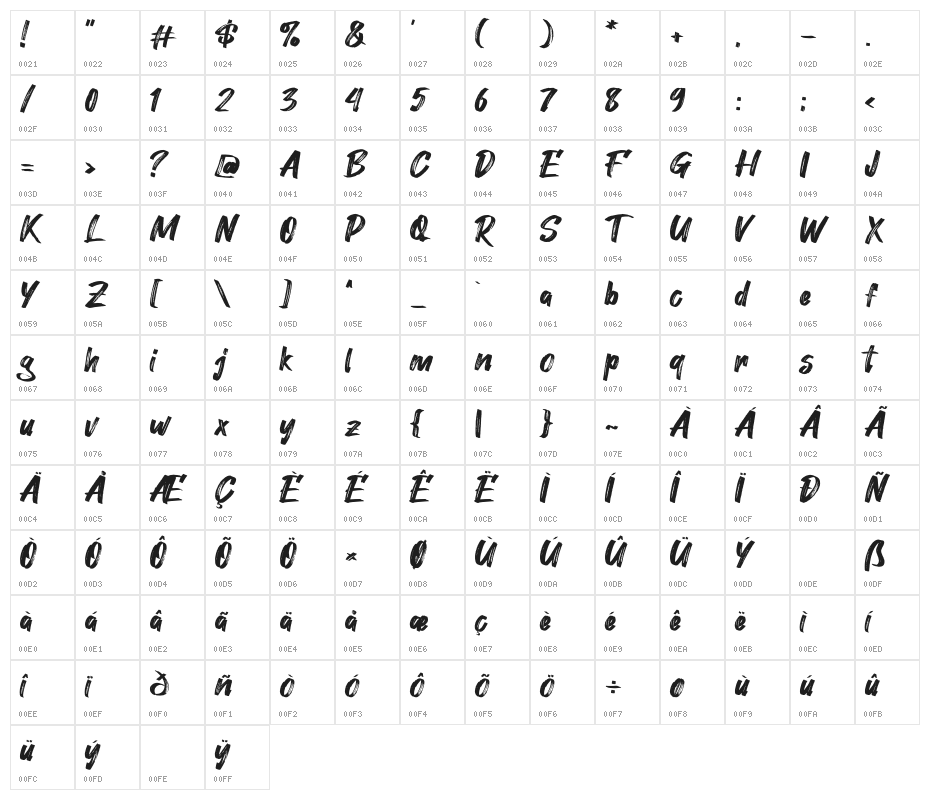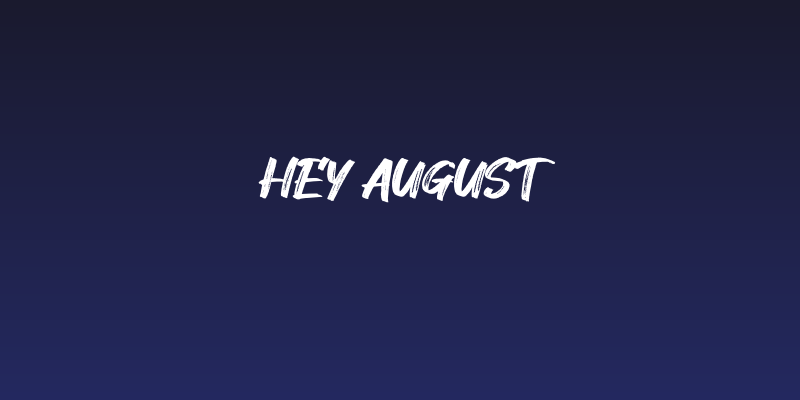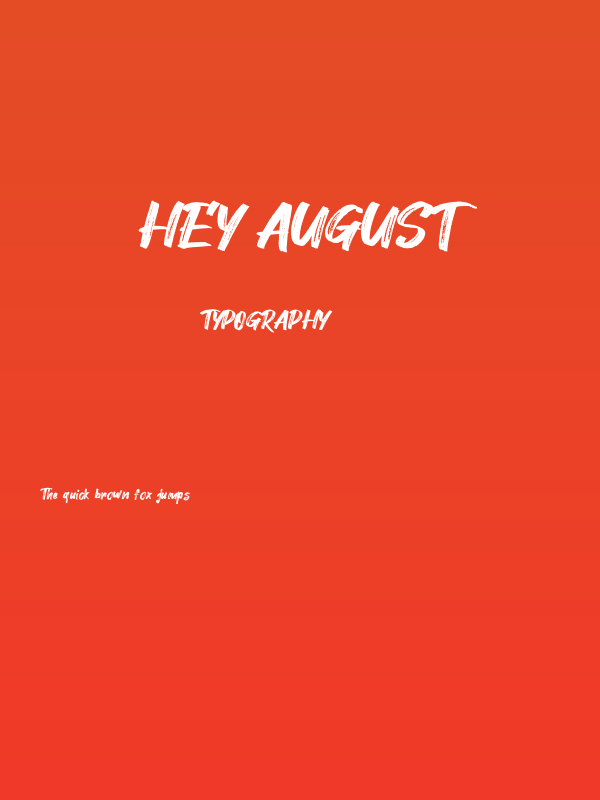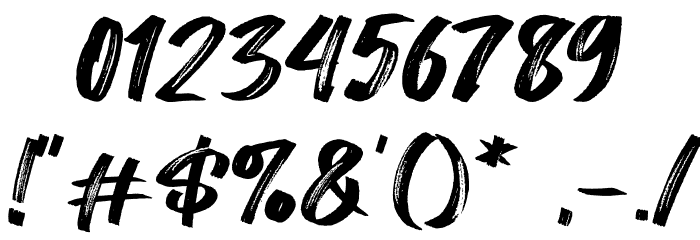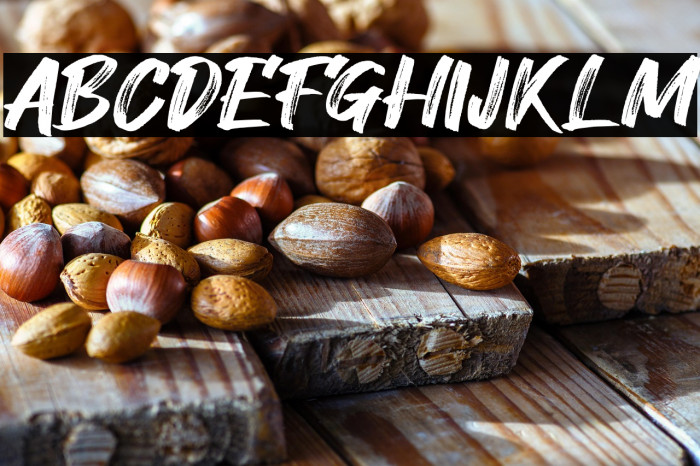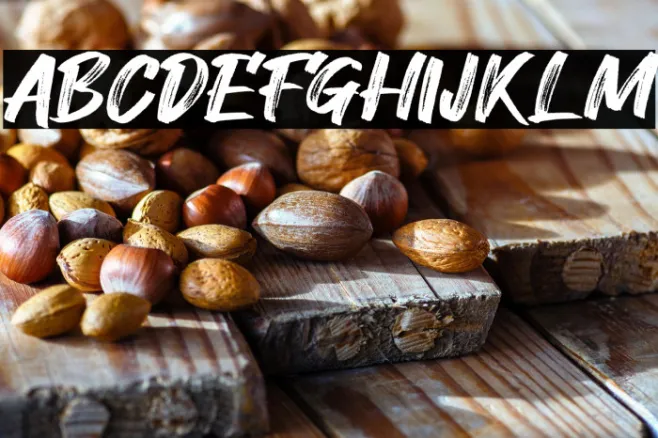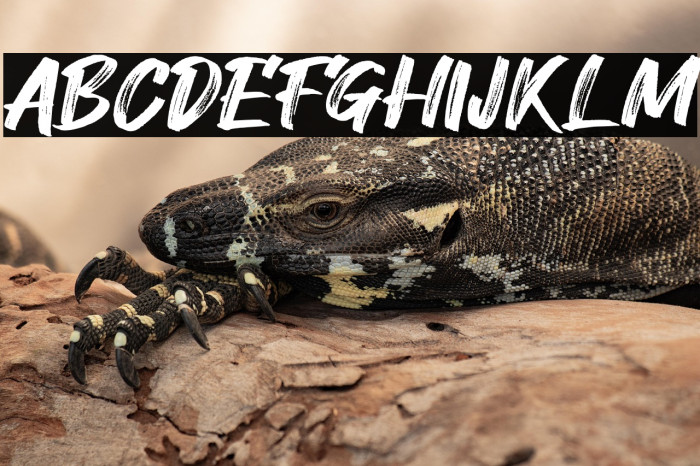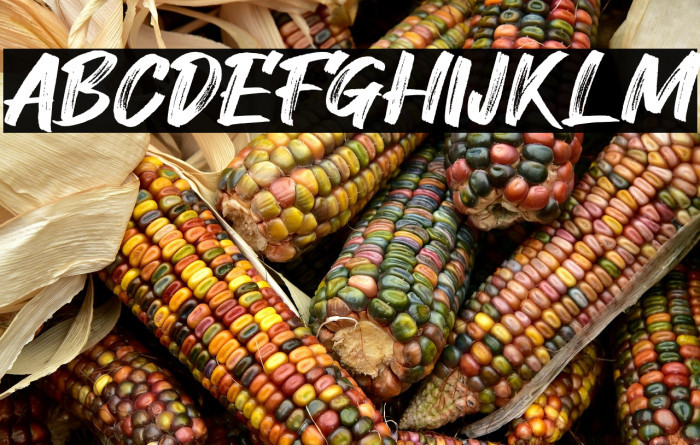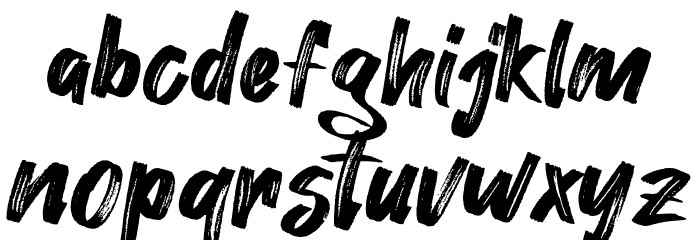
Hey August Font
Hey August Description
This font features a bold and dynamic brush script style, characterized by its energetic and expressive strokes. The letters have a hand-painted appearance, with varying thicknesses that add a sense of movement and spontaneity. The uppercase letters are bold and assertive, while the lowercase letters maintain a fluid and connected form. The numbers and special characters follow the same lively aesthetic, making the font versatile for creative projects. Its rough edges and textured look give it an authentic, handcrafted feel, perfect for adding a personal touch to any design.
| Proposed Projects | Ideal for branding, posters, invitations, and social media graphics where a personal, artistic touch is desired. |